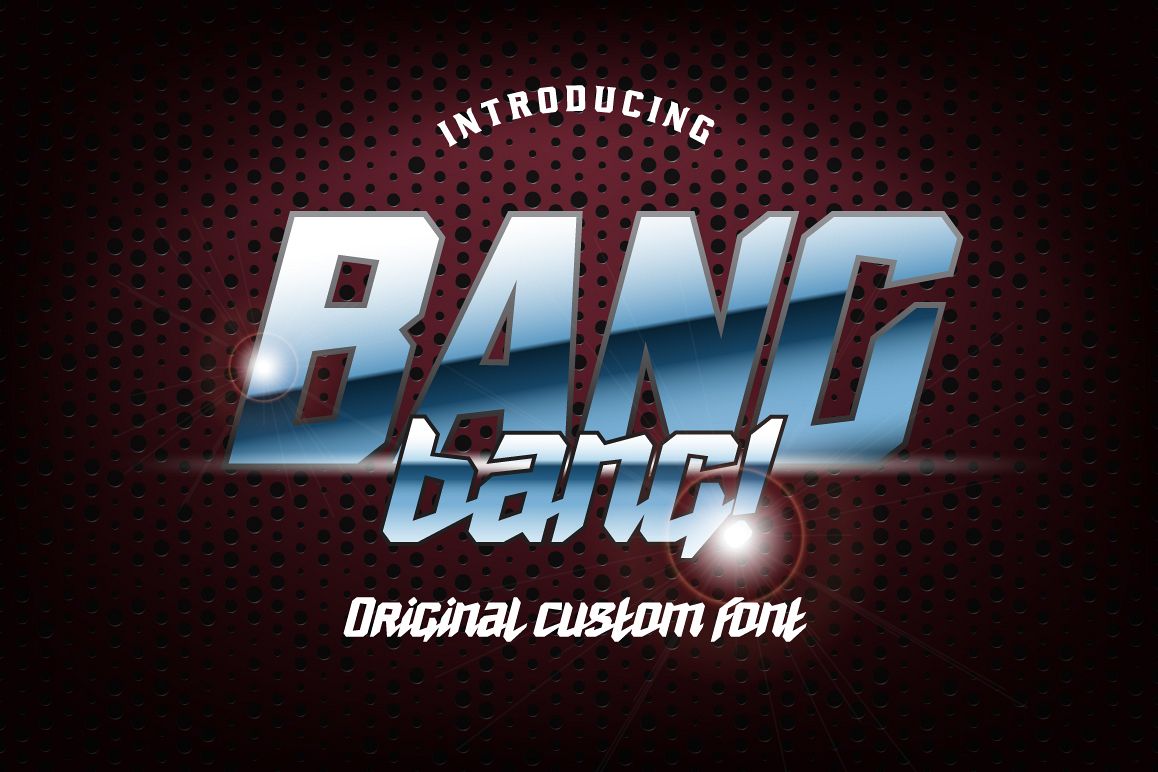
BANGbang!
Bangbang-Regular
Hi, friends. Introducing new font - BANGbang!
It's cool italic typeface with sans serif UPPERCASE letters and script smallcase.
Good for bright captions and unforgettable logos.